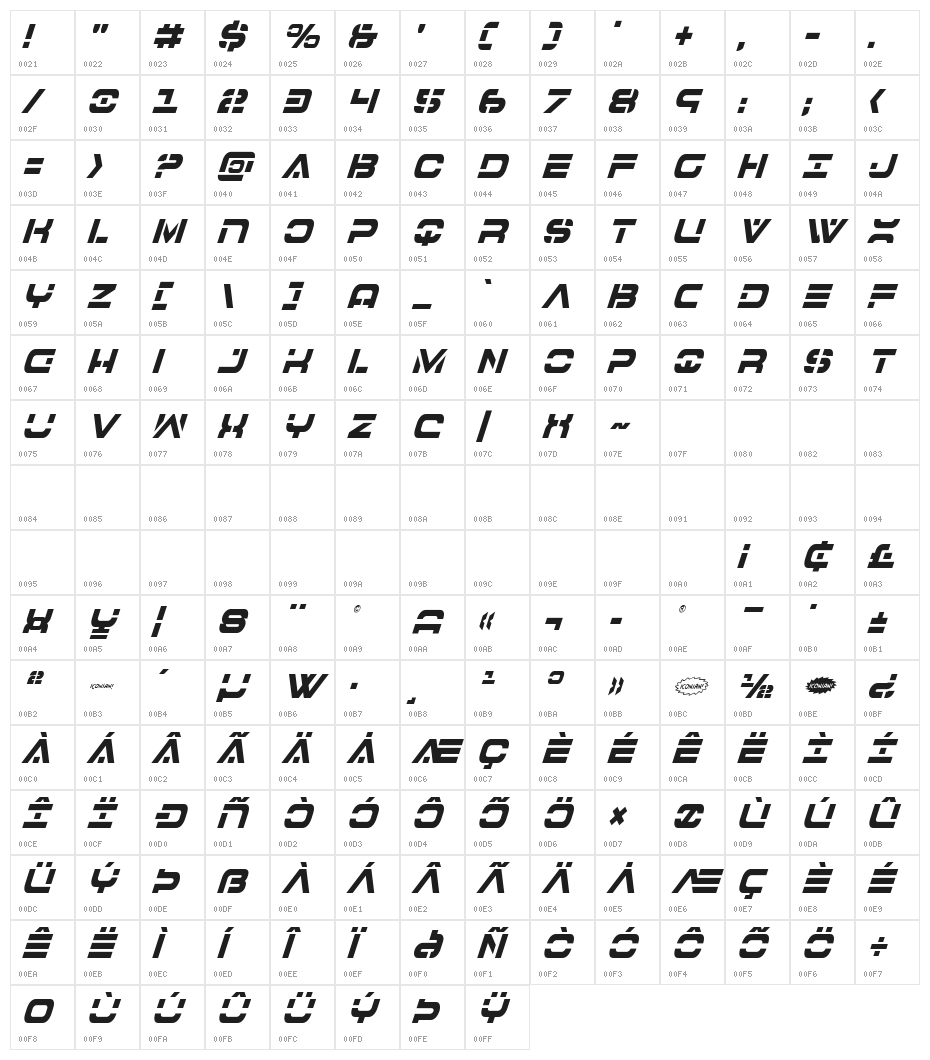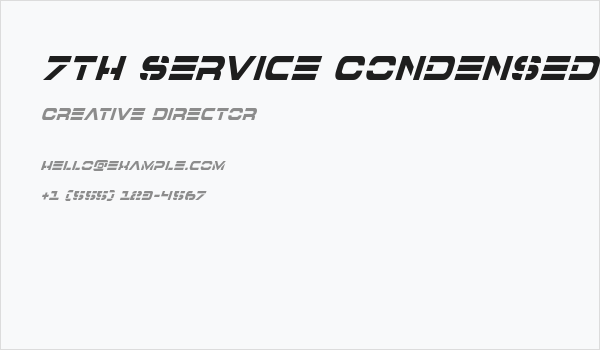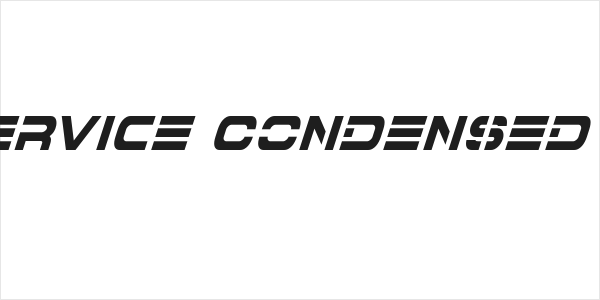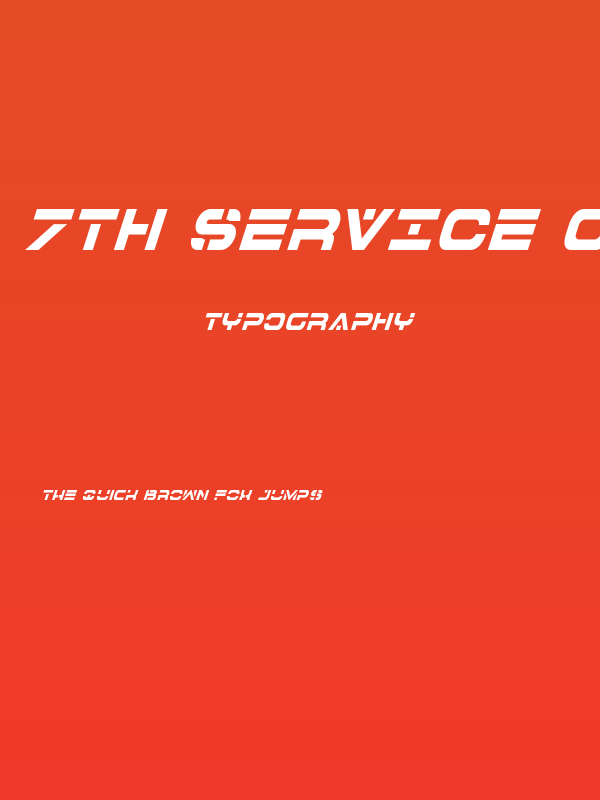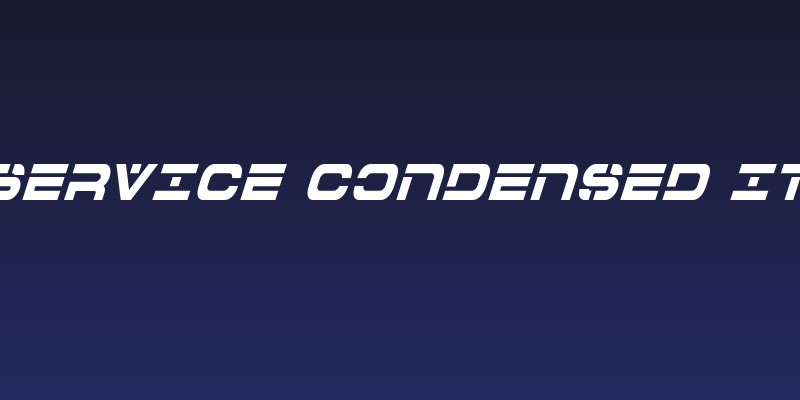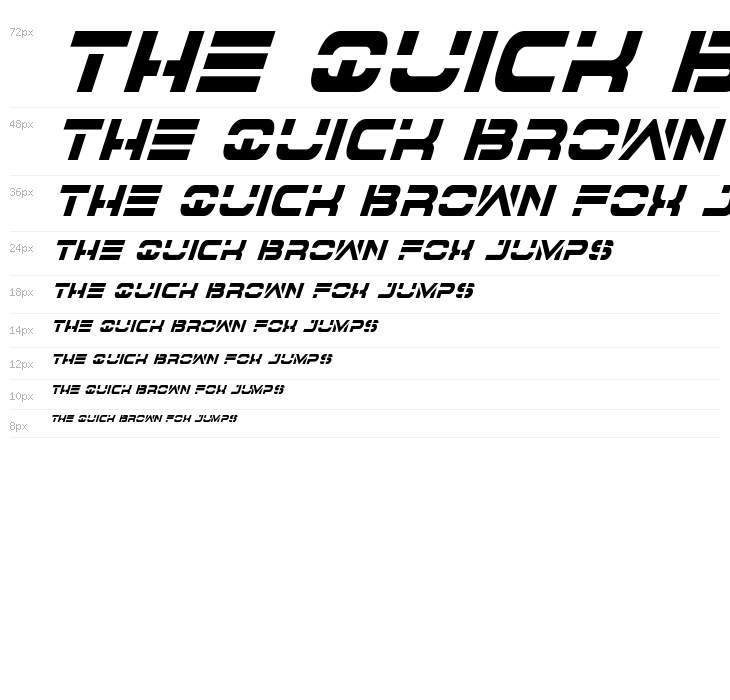
7th Service Condensed Italic Font
7th Service Condensed Italic Description
This font features a bold, italicized style with a distinctly modern and futuristic appearance. The characters are condensed, giving them a sleek and streamlined look. The design incorporates sharp angles and geometric shapes, creating a sense of movement and dynamism. The uppercase letters are particularly striking, with unique cuts and slashes that add to the font's edgy aesthetic. The numbers and special characters maintain the same bold and angular style, ensuring consistency across all elements. This font is ideal for projects that require a strong, impactful visual presence.
| Proposed Projects | Ideal for technology branding, sci-fi movie posters, video game titles, and modern advertising campaigns. |